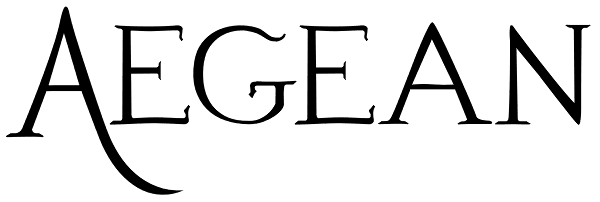
Aegean
Aegean is a Hellenic/Roman/Horror/Classical/Whatever — what do any of these things mean anymore when there’s ONE font (and you know who I mean) that’s doing ALL of the signifying work for anything Old/Official/Prestigeous/Scary/Whatever. Since we've...
Aegean
Aegean Plain
Aegean Small Caps